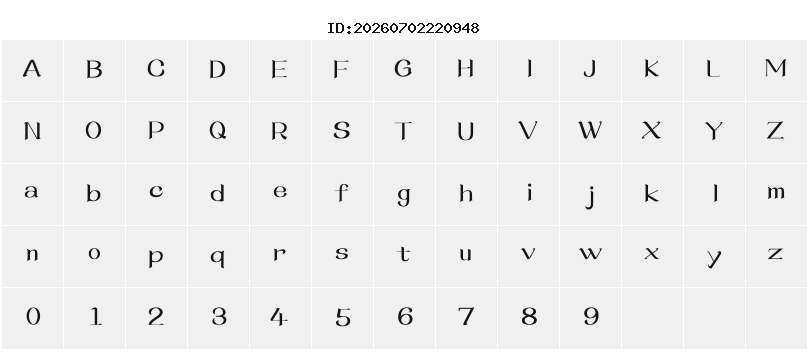
173-上首山水宋体 Preview
• Font Name: 173-上首山水宋体
• Font ID: 173-SSShanShuiSongTi:Version 6.00
• Full Font Name: 173-上首山水宋体
• Version: Version 6.00 November 4, 2022
• PostScript Name: 173-SSShanShuiSongTi
• Character Count: 7569
• Manufacturer: 上首造字
About 173-上首山水宋体.ttf
173-上首山水宋体.ttf is a modern, elegant sans-serif font designed for ultimate readability and visual harmony. Perfect for branding, headlines, web design, and print materials.